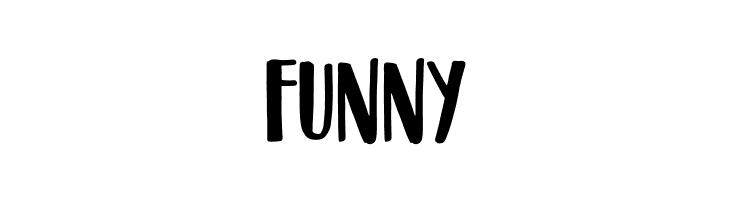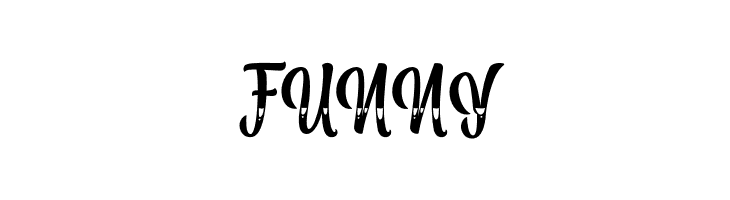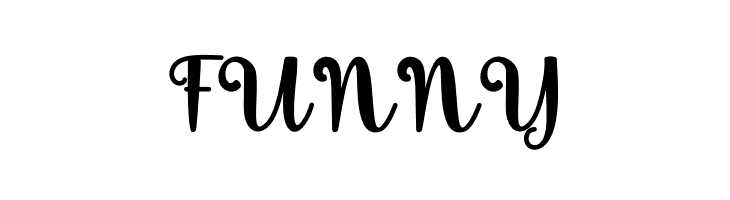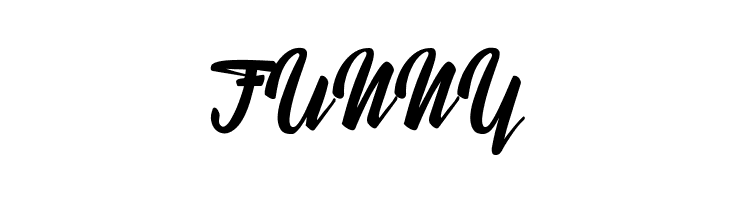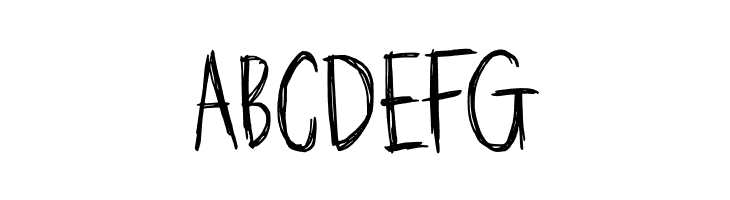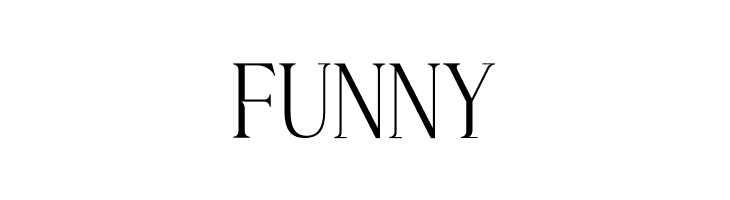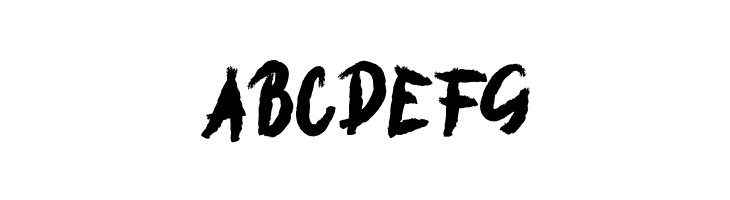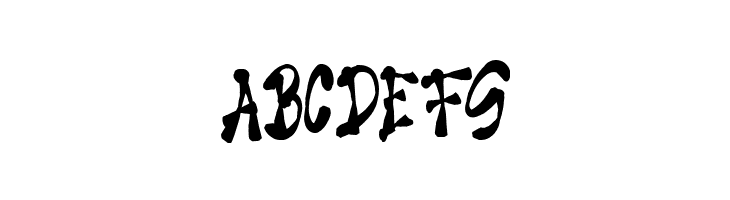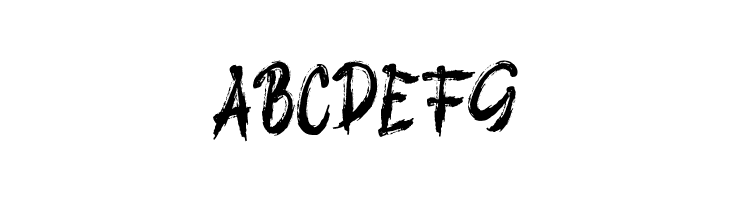
A graceful and flowing script font with elegant cursive letterforms.
A playful, bold, and hand-drawn style font with rounded strokes.
A charming and elegant script font with flowing, cursive letterforms.
A bold, brush-style font with dynamic, hand-painted strokes.
A bold, dynamic script font with a modern and elegant style.
A bold, brushstroke font with dynamic, artistic flair.
A bold, gothic-style font with sharp serifs and high contrast strokes.
A bold, angular font with a futuristic and energetic design.
A playful, artistic display font with a chaotic, hand-drawn style.
A bold, angular font with a futuristic and aggressive style.
Distressed, bold display font with a grunge texture.
A bold, brush-style font with sharp, angular strokes and high contrast.
A bold, graffiti-style font with a distinctive dripping effect.
A bold, graffiti-style font with a dripping effect, perfect for edgy designs.
A decorative and edgy font with thorn-like, intricate details.
A bold, dripping font with a horror-themed aesthetic.
A gothic, medieval-inspired font with sharp, angular lines and unique letterforms.
A bold, italic font with gothic influences and sharp, angular serifs.
A bold, angular font with an oblique style, perfect for impactful designs.
Bold, dripping decorative font ideal for horror themes.
A bold, brushstroke-style font with an edgy, rebellious aesthetic.
A bold, brush-stroke font with an aggressive, hand-drawn aesthetic.
A bold, jagged font with a dripping effect, perfect for dramatic and intense designs.
A bold, hand-drawn font with irregular strokes and a dynamic, expressive style.
A sleek, modern font with thin, elongated letterforms and minimal contrast.
A bold, brush-style font with dynamic, hand-painted strokes.
A bold, impactful font with strong, thick strokes and slight serifs.
A bold, distressed font with a grunge texture and rugged appearance.
A bold, gothic Blackletter font with intricate, angular designs.
A hand-drawn, sketch-like font with tall, narrow characters and an artistic feel.
A bold, angular Gothic-inspired font with sharp edges and thick strokes.